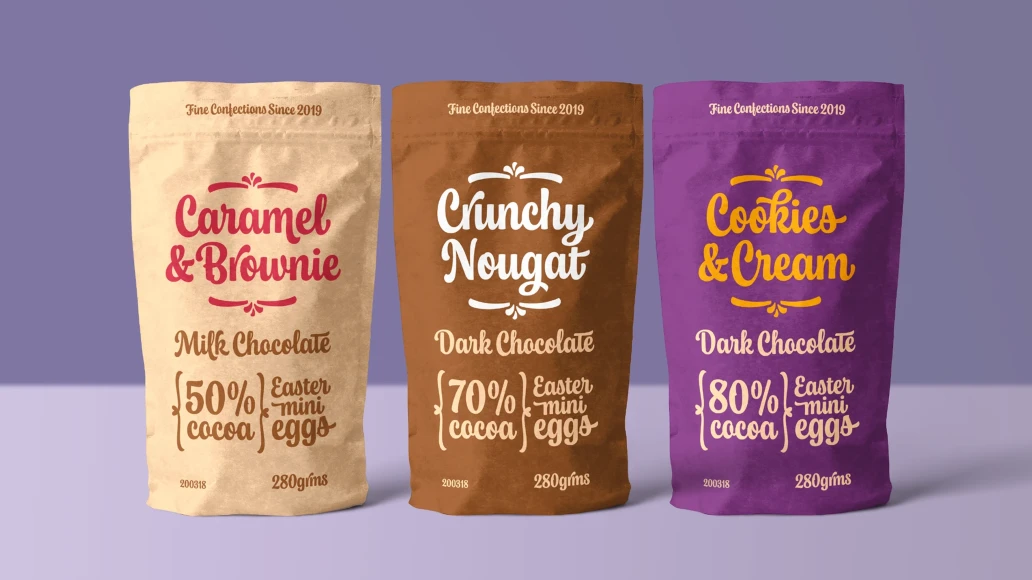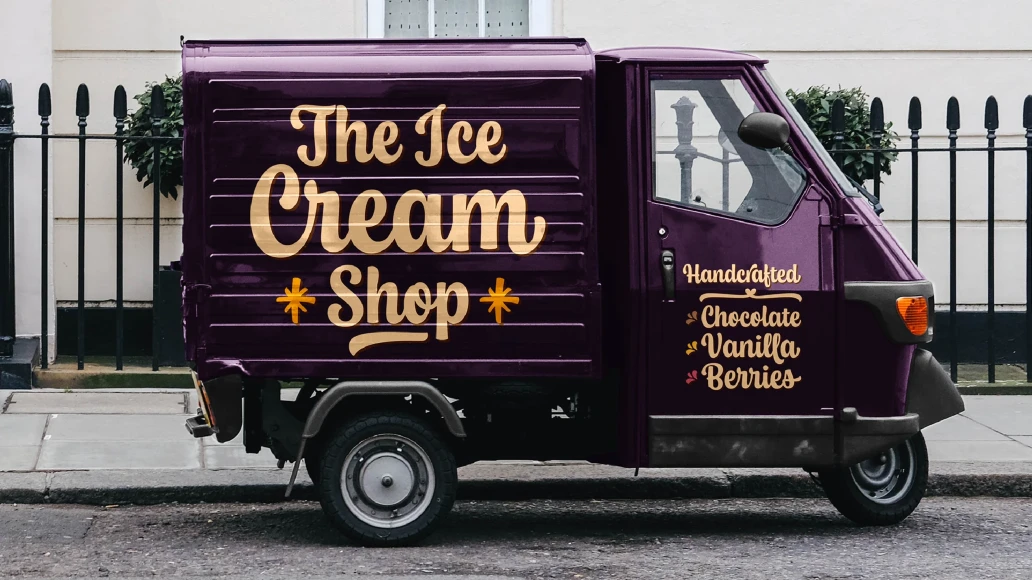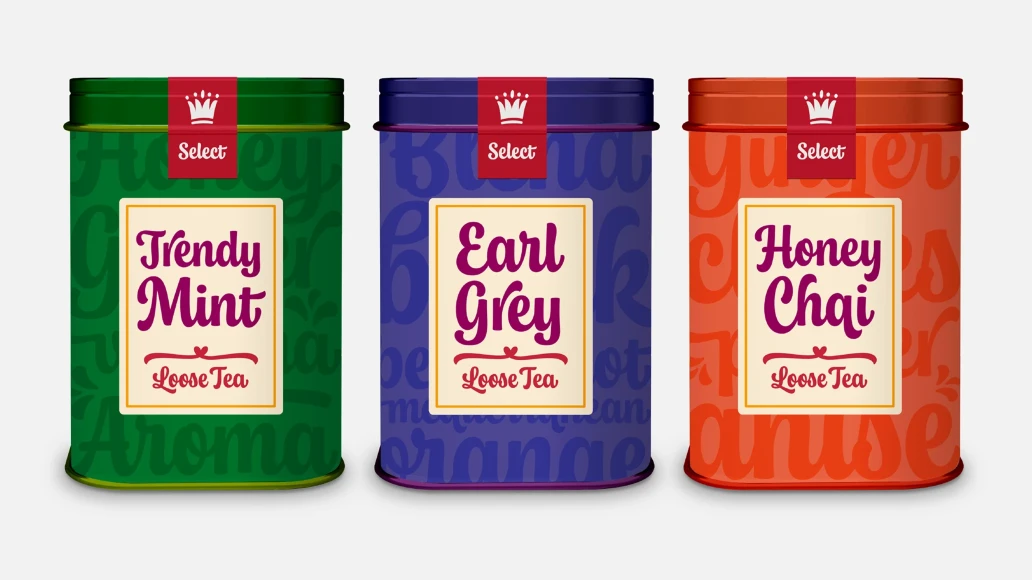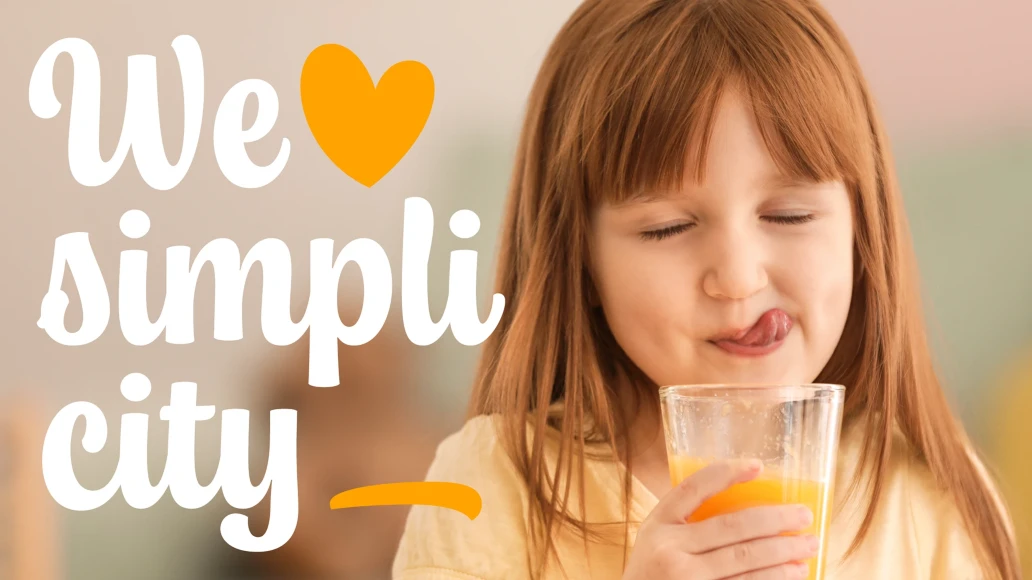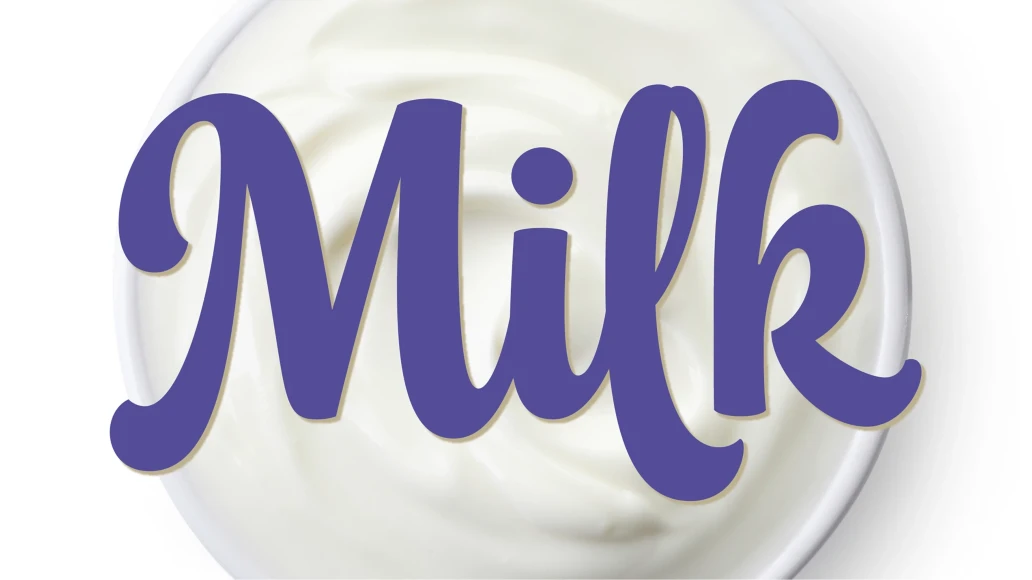
Chonky
Chonky is a bold script font based on English calligraphy but with touches of the vitality that the commercial lettering of 1950s had, and it is mostly inspired in the work of the master Doyald Young and his lessons. Its rounded terminals, friendly look and heavy weight make Chonky a perfect option for advertising, packaging and visual identities.
In the Regular font, the ascenders, descenders and capitals are the shorter they could be; while in Poster, they are larger, in order to achieve more graceful forms. Both options include stylistic sets and ligatures to embellish the words. Use professional software that widely support Open Type features. Otherwise, you may not have access to some glyphs. Keep the Standard Ligatures and Contextual Alternates features always active. For further information about features and alternates, see the User Guide
Chonky has extensive Western, Central and Eastern European language support.